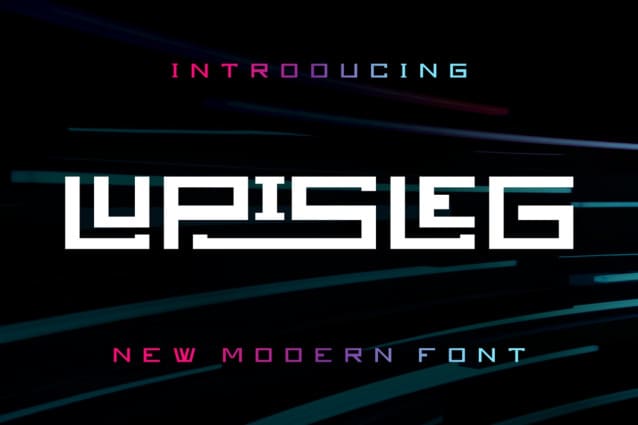
Lupisleg Techno Font
Lupisleg Techno Font – Modern Font is a bold and authentic display font. The font is suitable for any branding project like logo, t-shirt printing, esport, and many more. outstanding in a wide range of contexts.